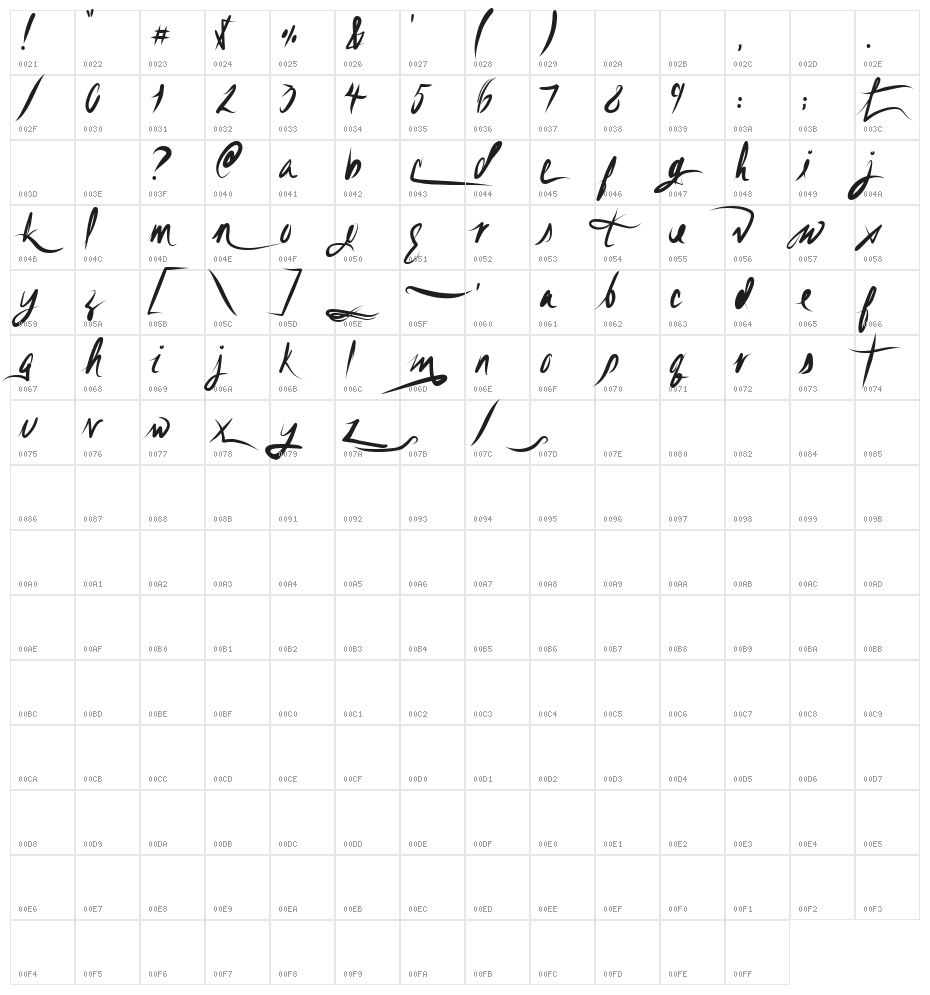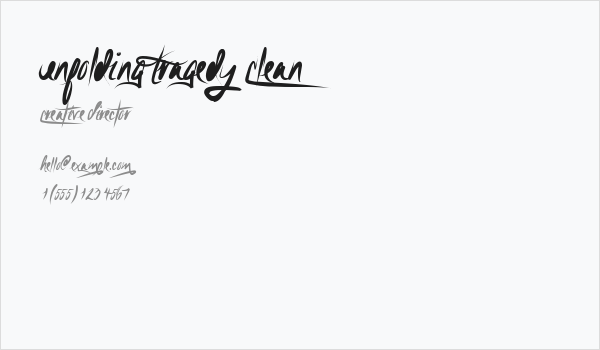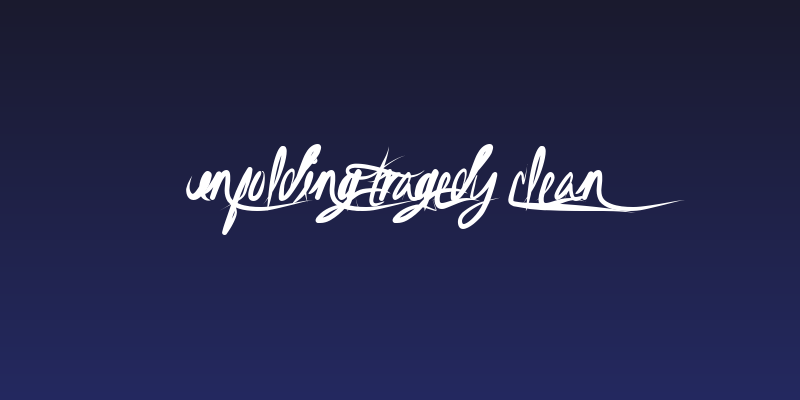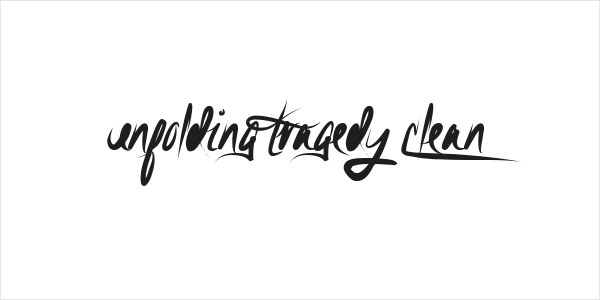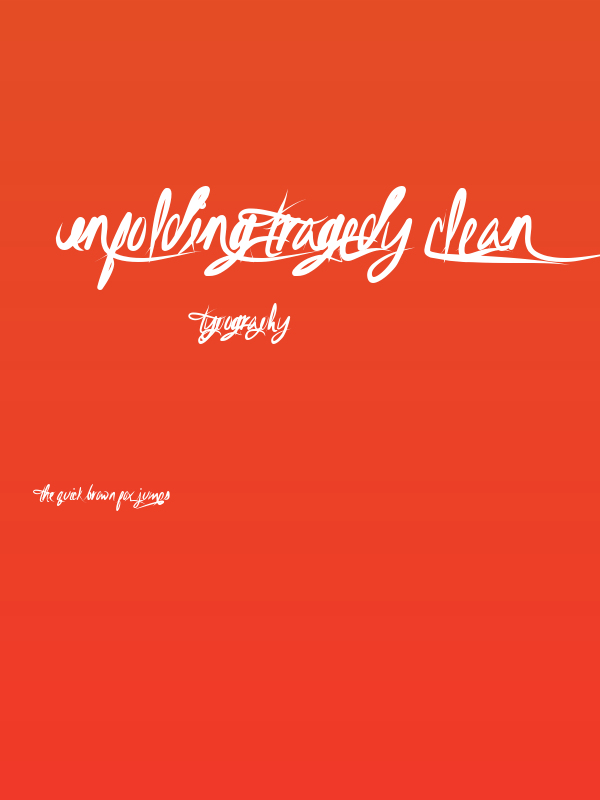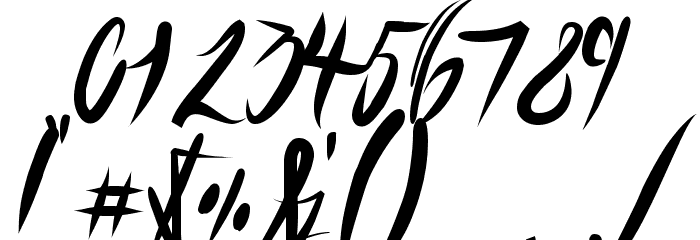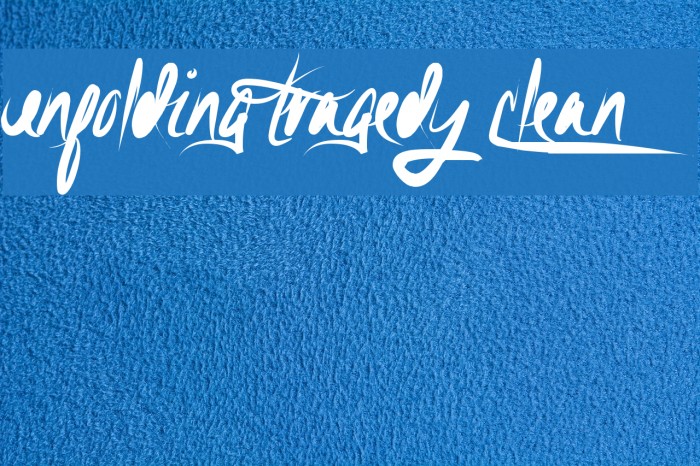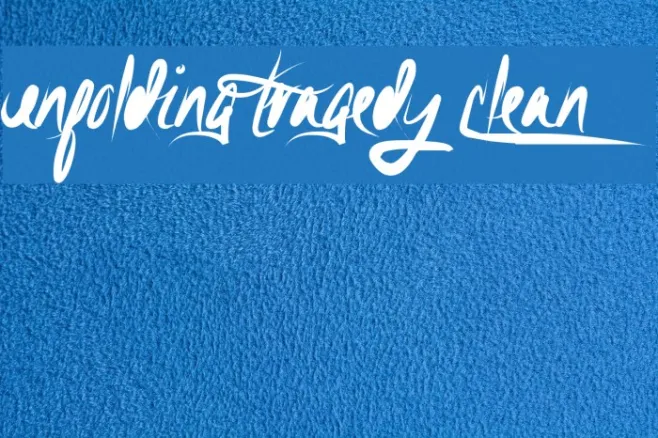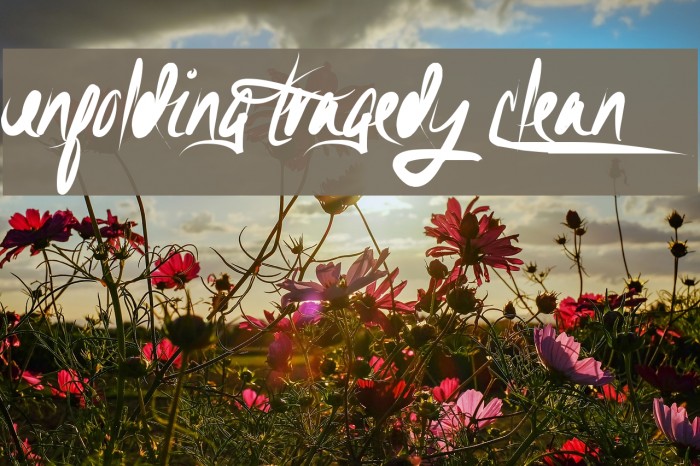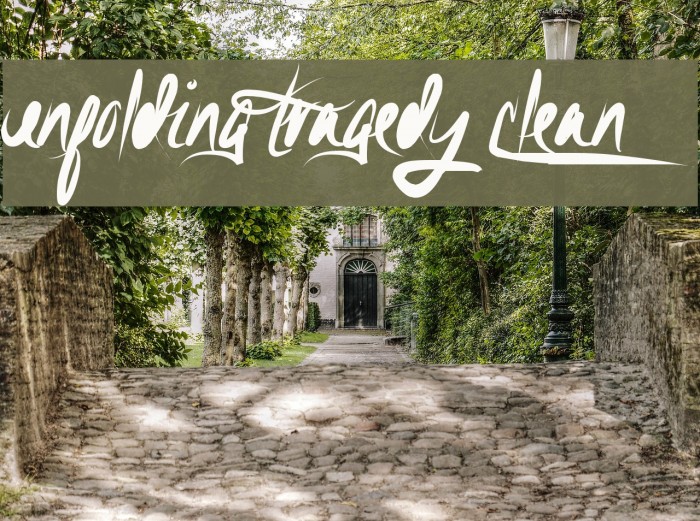
Unfolding Tragedy Clean Font
Unfolding Tragedy Clean Description
This font exhibits a highly expressive and dynamic script style, characterized by its fluid, sweeping strokes and dramatic flair. The letters are intricately designed with a sense of movement and energy, creating a visually striking appearance. The uppercase and lowercase letters are crafted with elongated, flowing lines that often extend beyond the baseline and x-height, adding to the font's artistic appeal. The numerals and special characters maintain the same level of expressiveness, ensuring a cohesive look across all glyphs. This font's unique style makes it stand out, offering a bold statement in any design.
| Proposed Projects | Ideal for artistic projects, branding, invitations, and any design requiring a dramatic and expressive touch. |